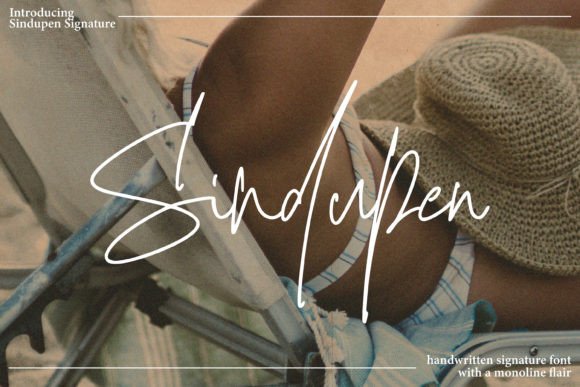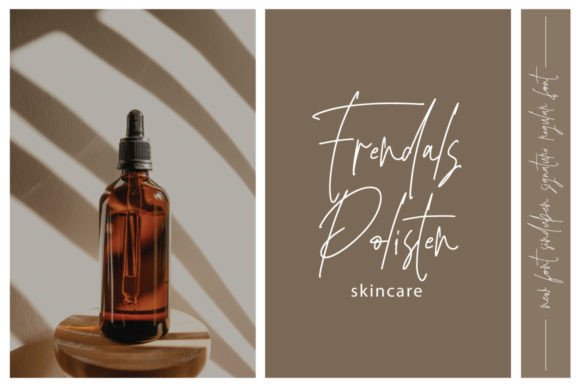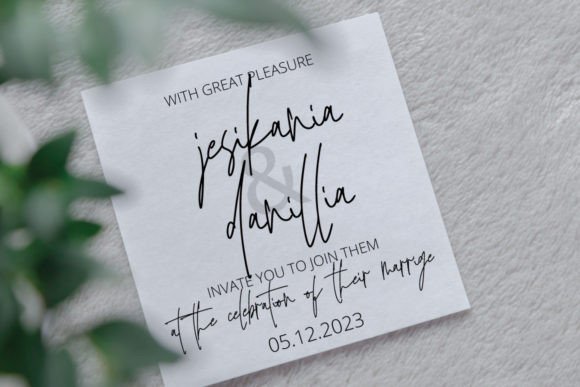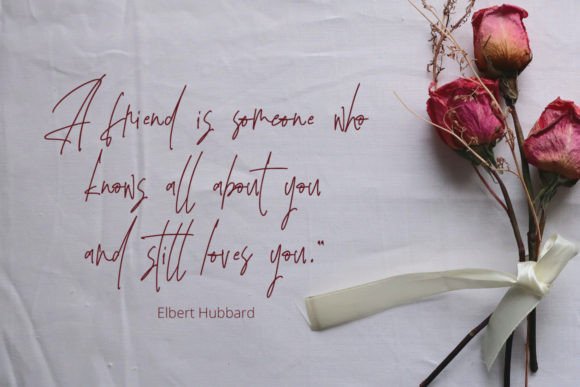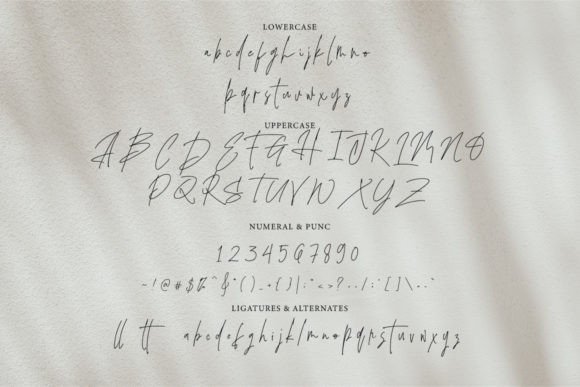
About Sindupen Signature
Sindupen Signature is a delicate, elegant, and flowing handwritten font. It has beautiful and well-balanced characters and as a result, it matches a wide pool of designs.